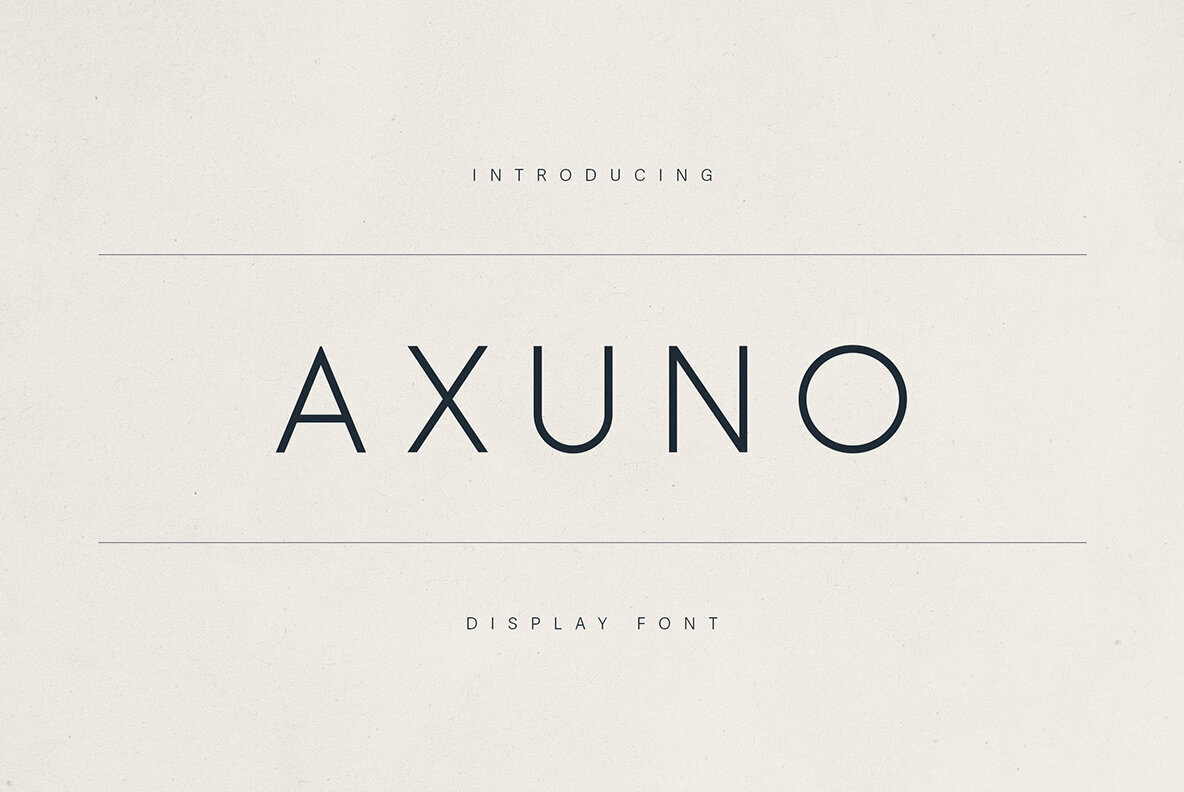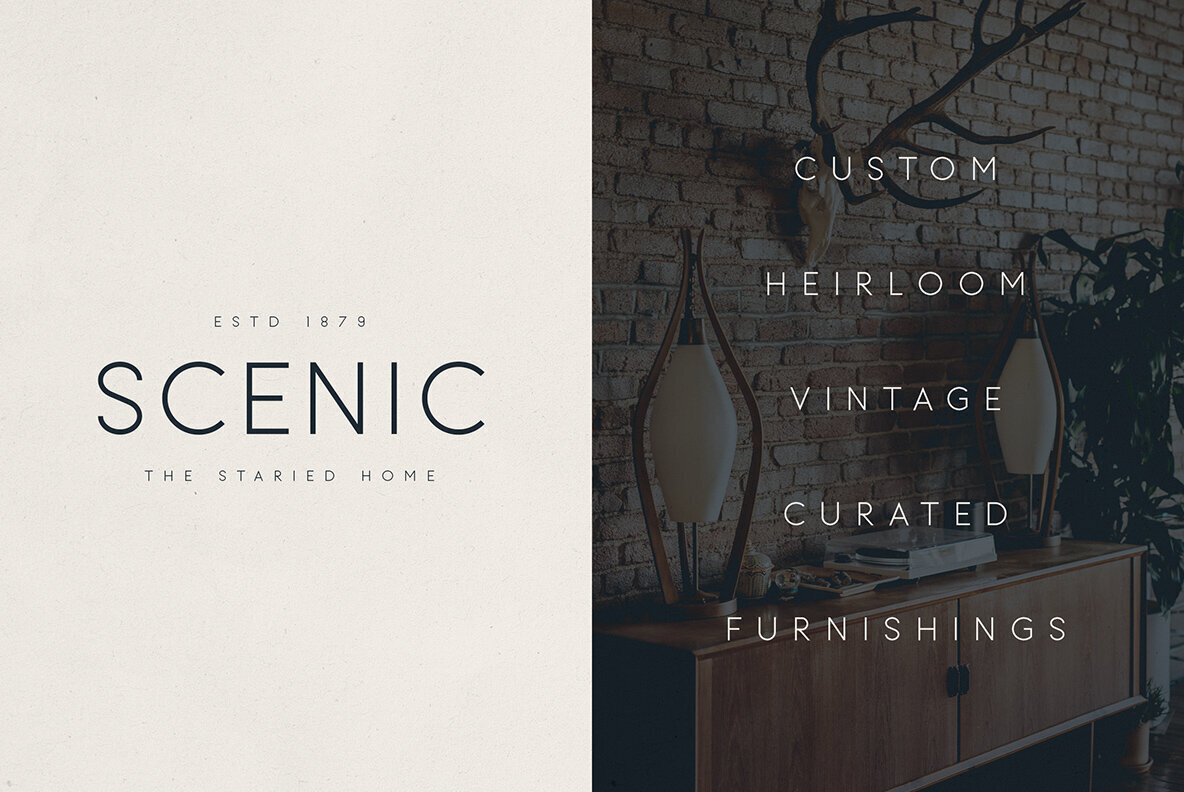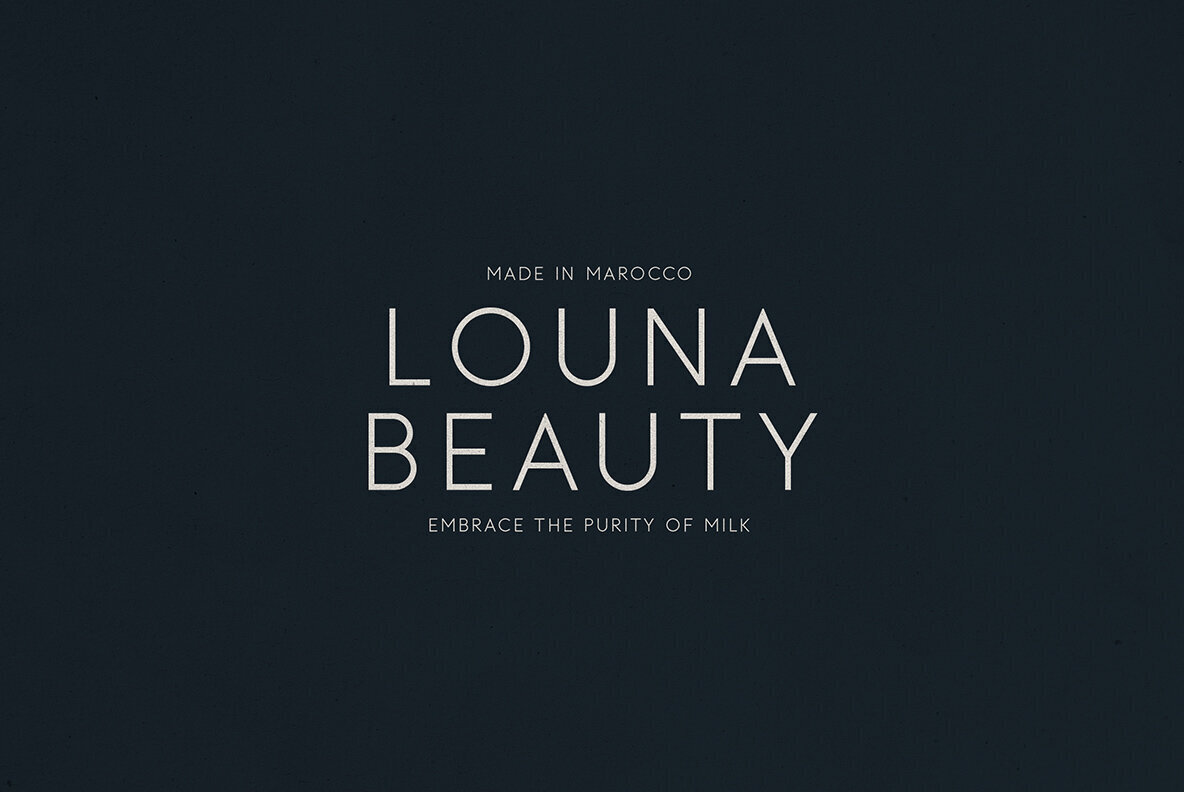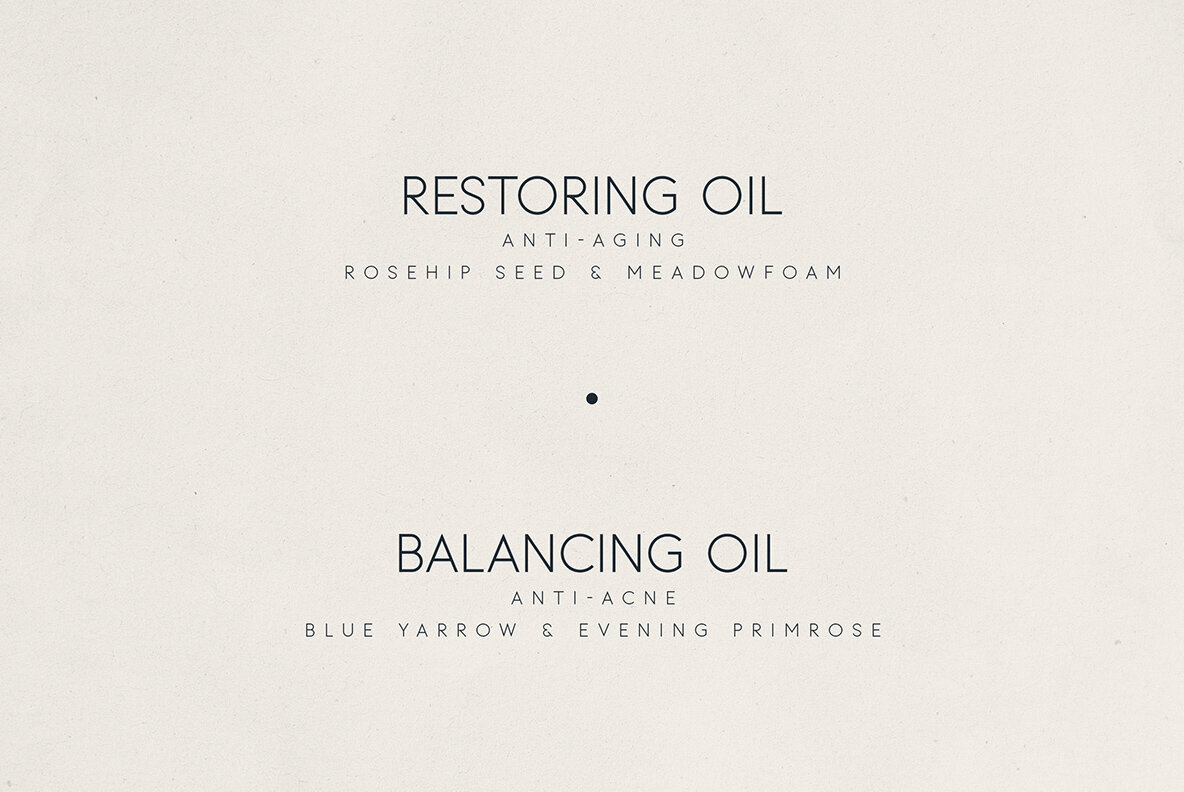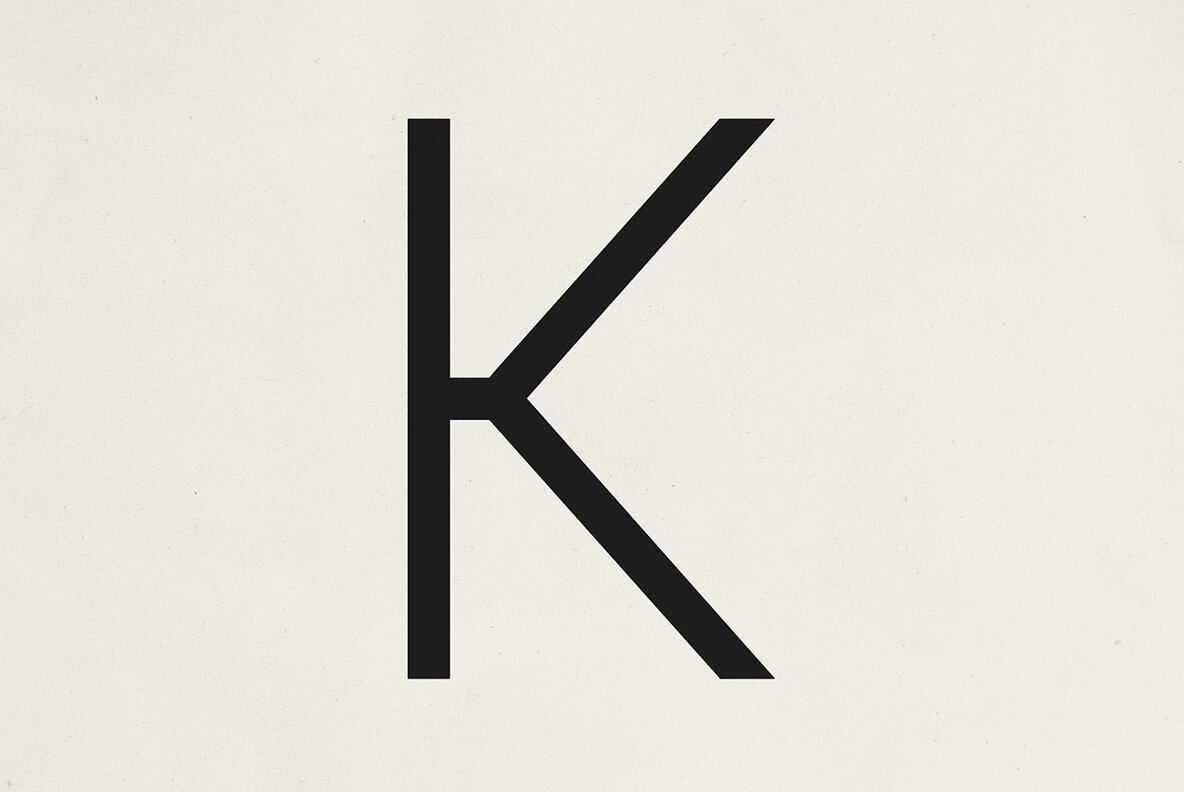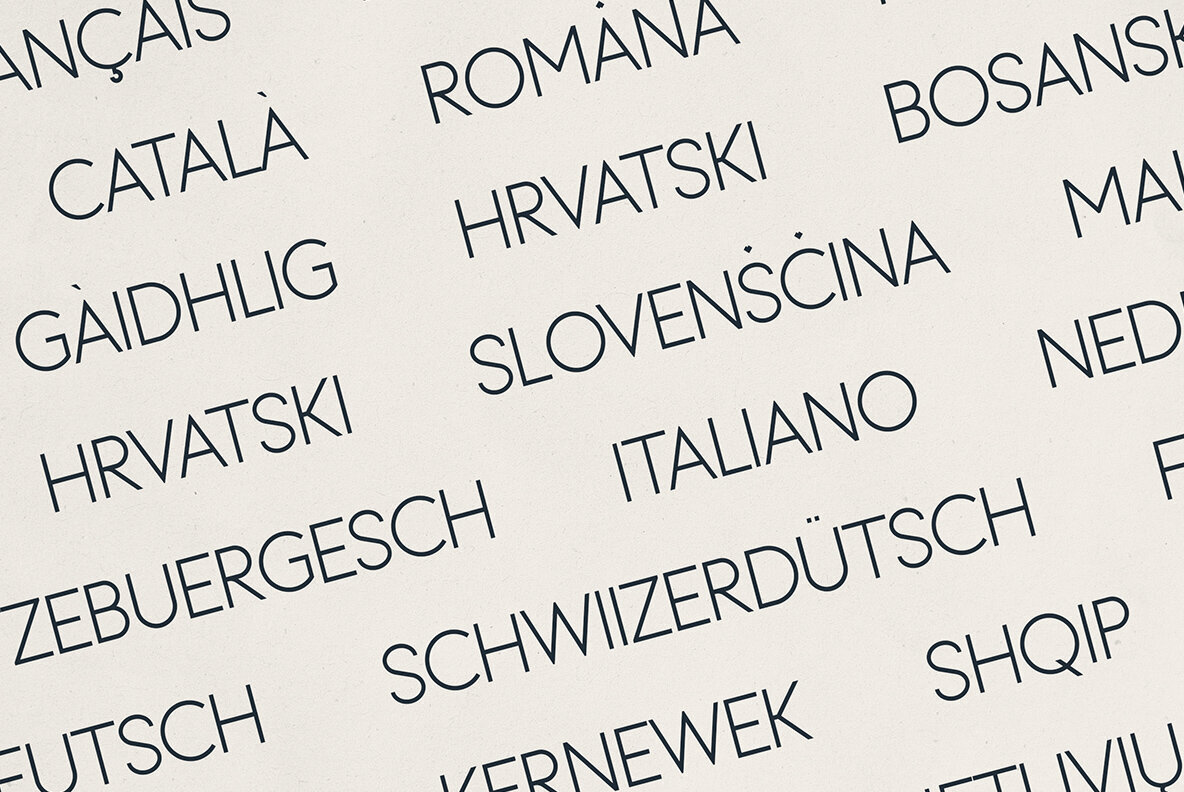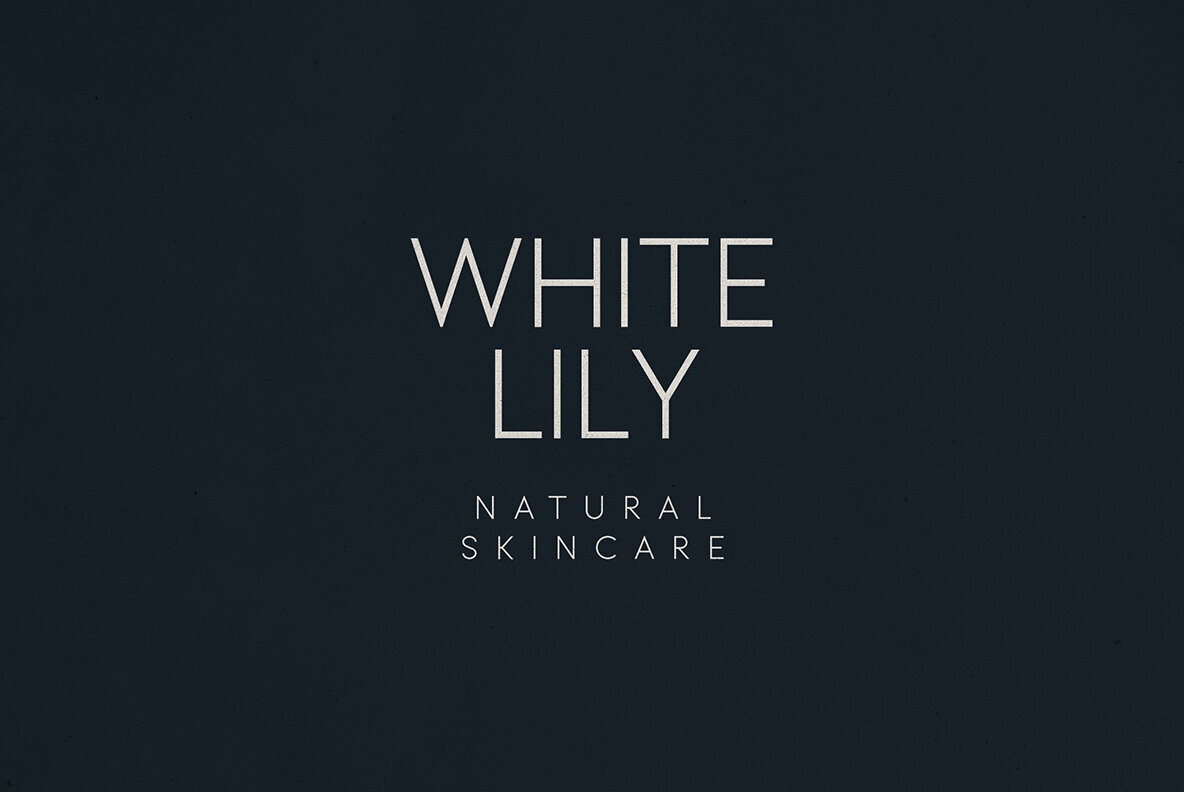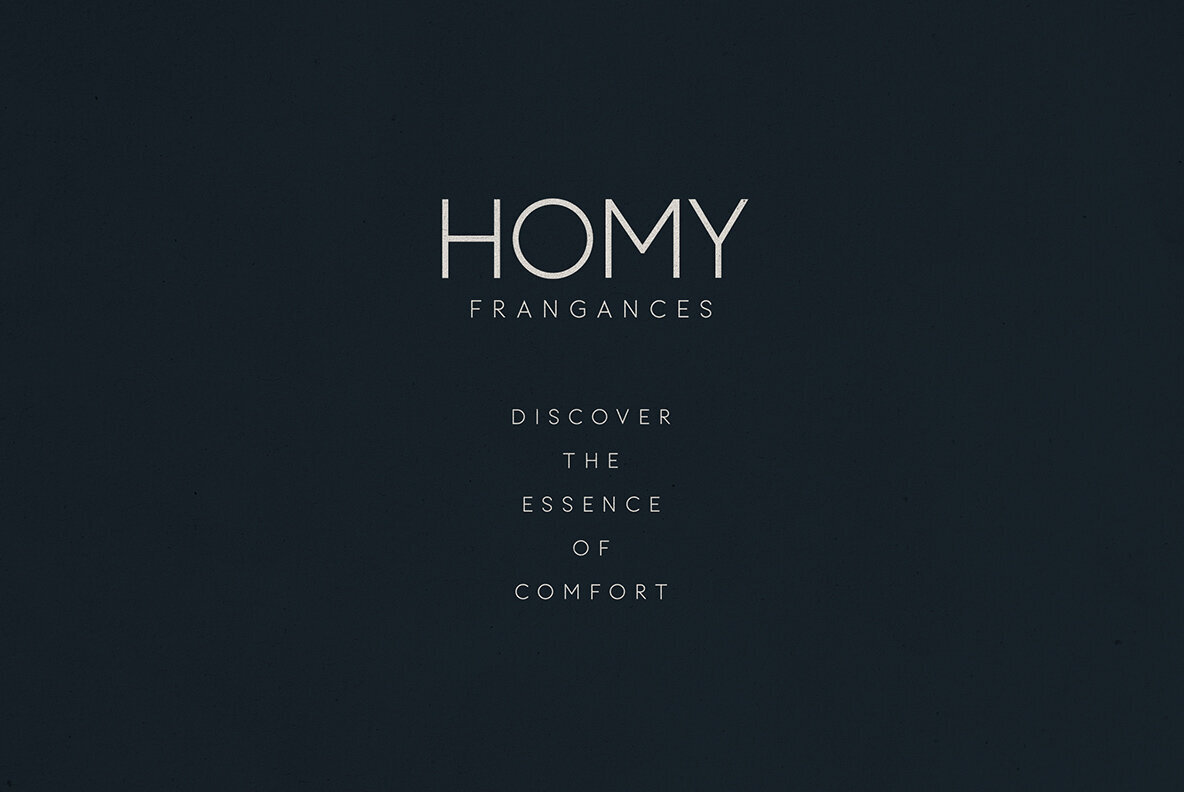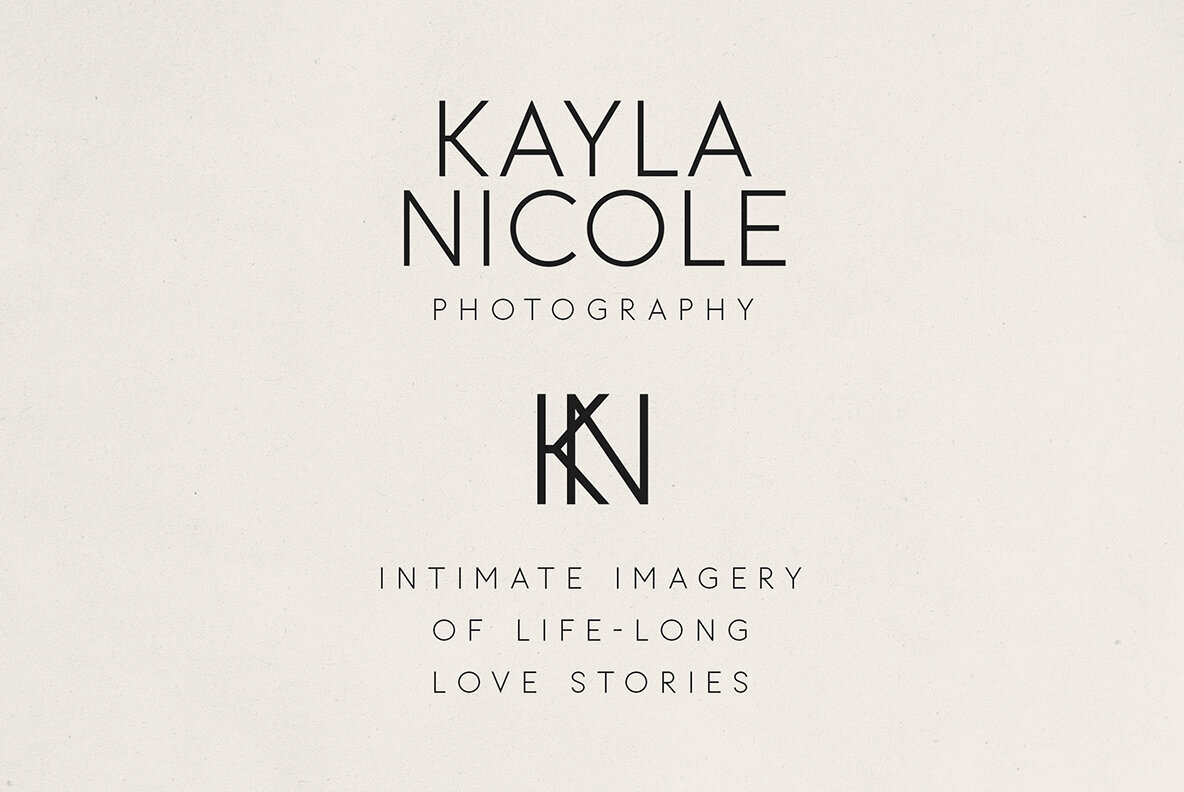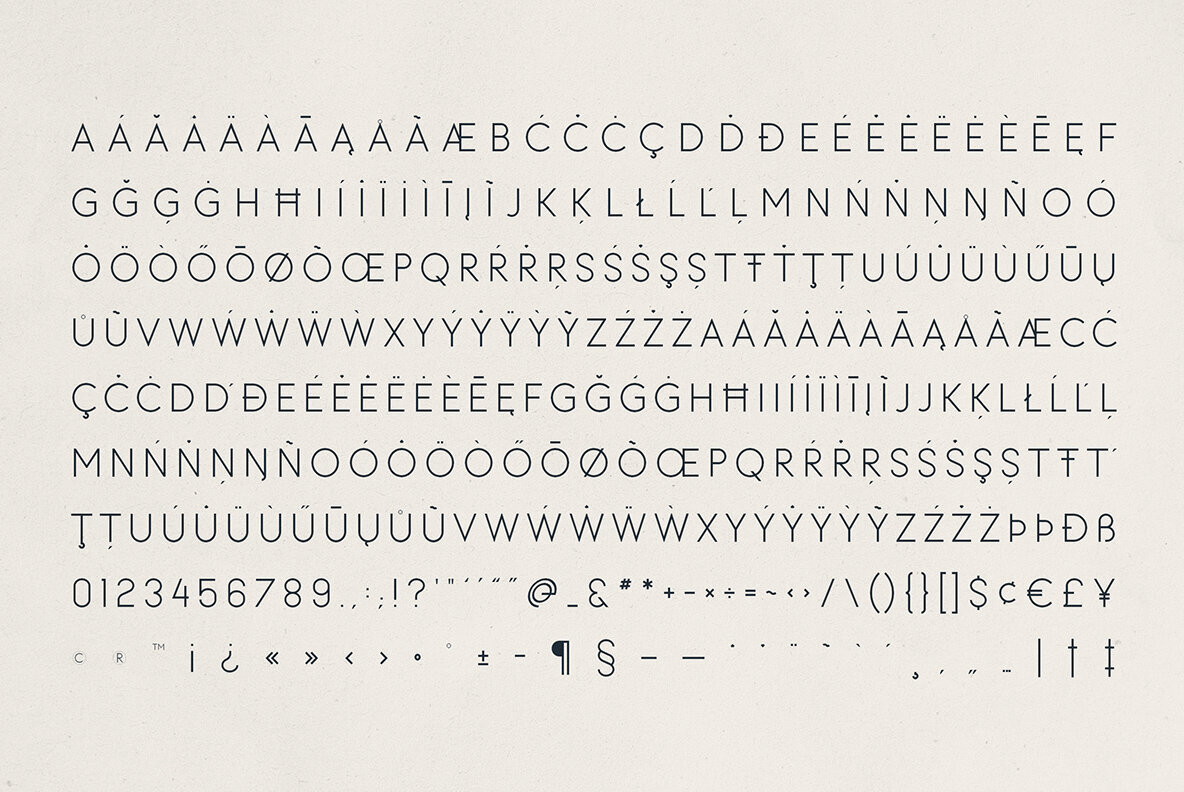
Axuno Font
Axuno Regular
Discover Axuno, a modern sans serif display typeface that masterfully combines precision with elegance. Ideal for luxury branding, Axuno exudes timeless sophistication in editorial design, product packaging, and digital media. It features clean geometry and open letterforms, delivering elegance and clarity in both print and digital formats. With refined proportions, Axuno effortlessly adapts to styles ranging from vintage-modern to contemporary chic. Enhance your designs with this typeface's sleek presence, whether crafting a logo, a captivating magazine layout, or refined product labels.Axuno – Minimal & Elegant Display Sans Serif Font